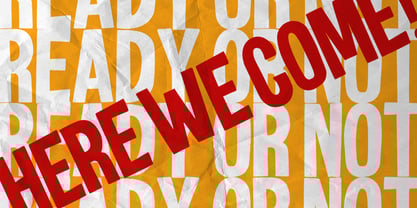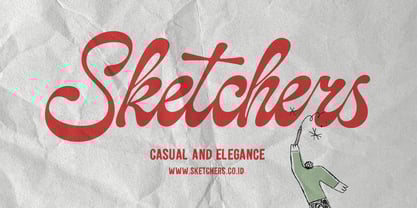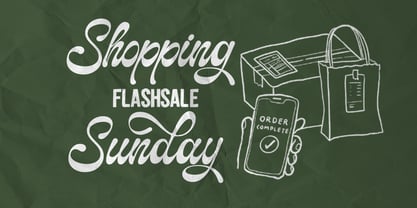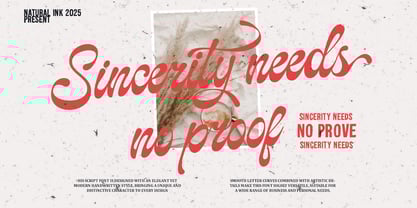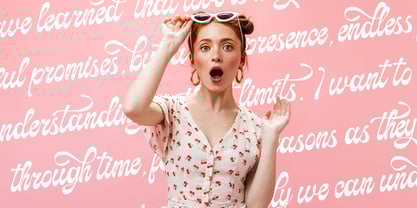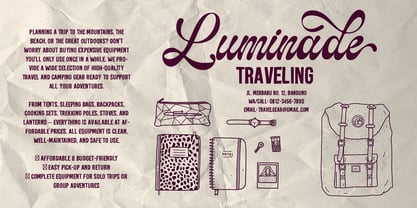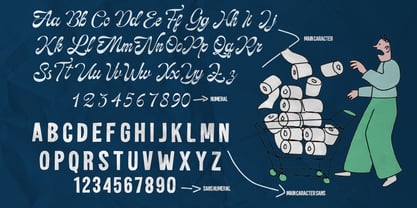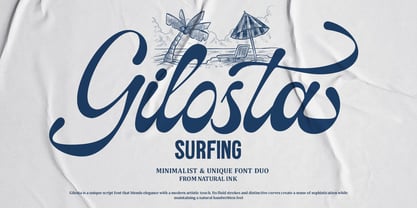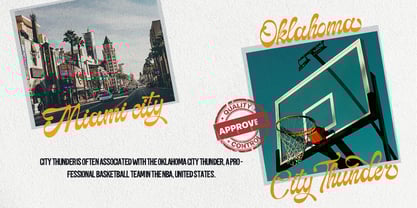
Gilosta Surfing Script
by Natural Ink
The Gilosta Surfing Script Font Family was designed by Arif Gunawan and published by Natural Ink. Gilosta Surfing Script contains 2 styles.
Introducing Gilosta Surfing, a unique hand-crafted script font designed to bring elegance, warmth, and a personal touch to every creative project. With flowing strokes, natural curves, and refined details, this font is perfect for logos, invitations, branding, social media, and editorial designs. Its blend of modern and classic aesthetics makes it versatile for a wide range of visual styles. As a special bonus, this package also includes a handwritten sans font. This sans font pairs seamlessly with the script, providing balance and beautiful contrast with its casual yet neat strokes. Together, they create a harmonious typography combination—ideal for bold headlines, heartfelt quotes, or cohesive branding identities. With these two complementary fonts, you’ll have endless creative freedom to craft designs that are both elegant and personal. A perfect choice for designers, entrepreneurs, and creatives who want to add a professional yet warm touch to their work.
Designers: Arif Gunawan
Publisher: Natural Ink
Foundry: Natural Ink
Design Owner: Natural Ink
Gilosta Surfing Script